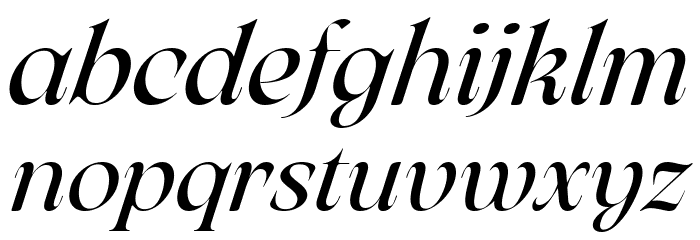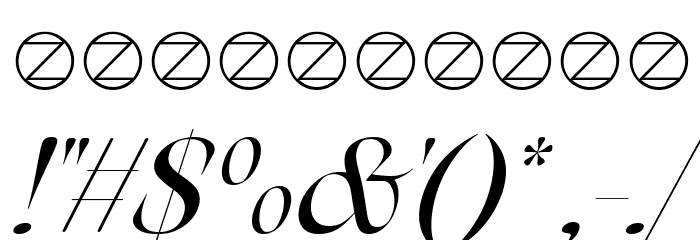
Arsenica Trial Italic Font
This font exhibits a refined and elegant italic style, characterized by its smooth, flowing curves and sharp, pointed serifs. The letters have a distinct slant, enhancing the dynamic and sophisticated appearance. The uppercase letters are tall and graceful, while the lowercase letters maintain a consistent rhythm and balance. The numerals are aligned with the overall style, providing a cohesive look. Special characters are designed with the same attention to detail, ensuring versatility across various applications. The font's high contrast between thick and thin strokes adds to its dramatic flair, making it suitable for projects that require a touch of elegance and sophistication.
An elegant italic serif font with high contrast and flowing curves.
- Proposed Projects: Ideal for luxury branding, wedding invitations, editorial design, and high-end product packaging.
- Overall Style: Elegant
- Use Case: Headlines, Logos, Invitations